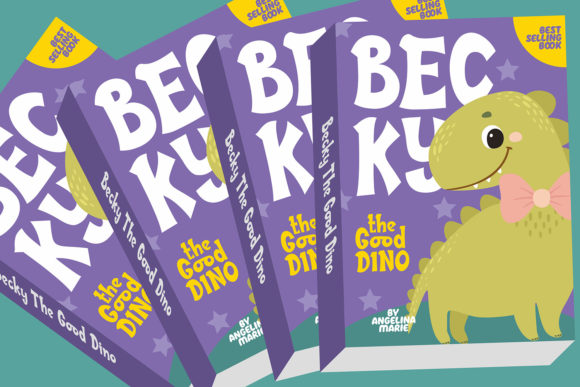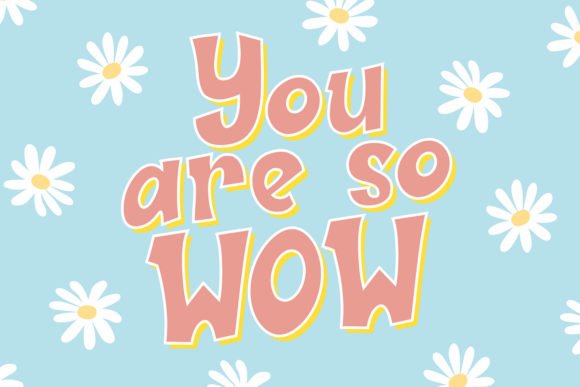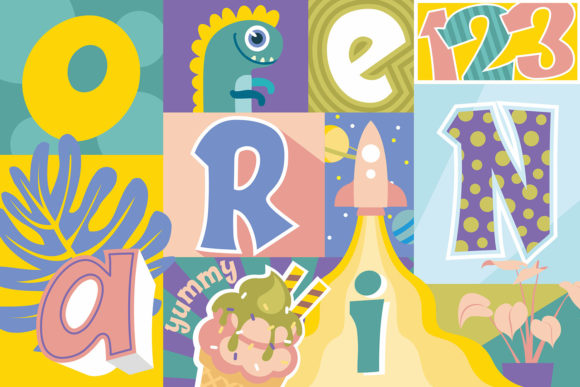
Introduction to Mobig Font
Mobig is a cool, fun and playful display font.
It is PUA encoded which means you can access all of the glyphs and swashes with ease Add this chunky lettered font to your designs and notice how it makes them come alive.